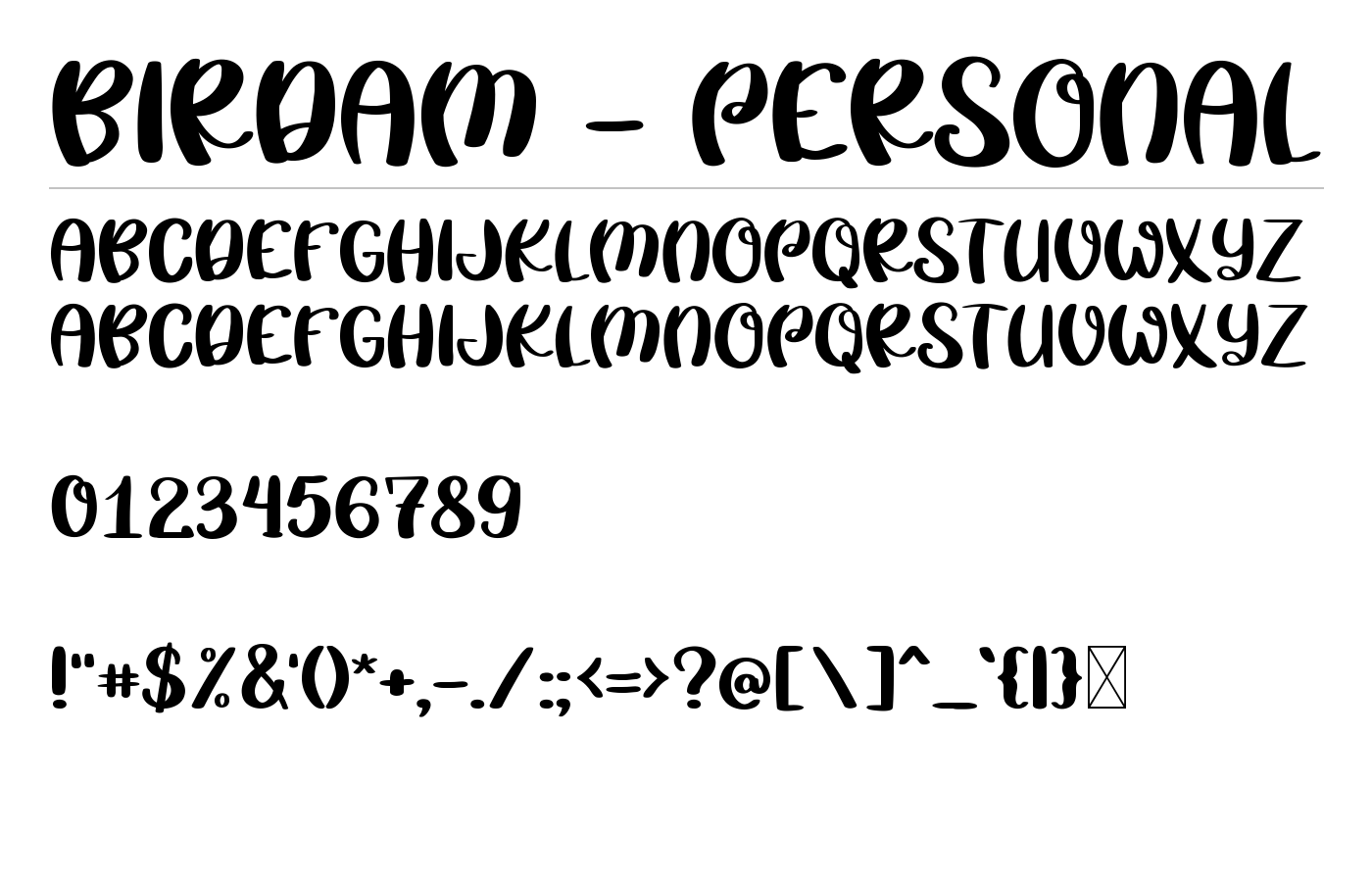
Birdam is a playful and bold handwritten sans serif font with rounded, organic shapes and medium-high contrast strokes that give it a lively yet approachable feel. Its unique letterforms, including distinctive ampersands and a variety of stylistic alternates, make it ideal for fun, casual branding, headlines, and creative projects that seek a friendly, energetic personality. This font works especially well in logos, packaging, and editorial designs where a personal, handcrafted touch is desired.
Birdam - PERSONAL Font
About Birdam - PERSONAL Font
| Font family | Birdam - PERSONAL Font |